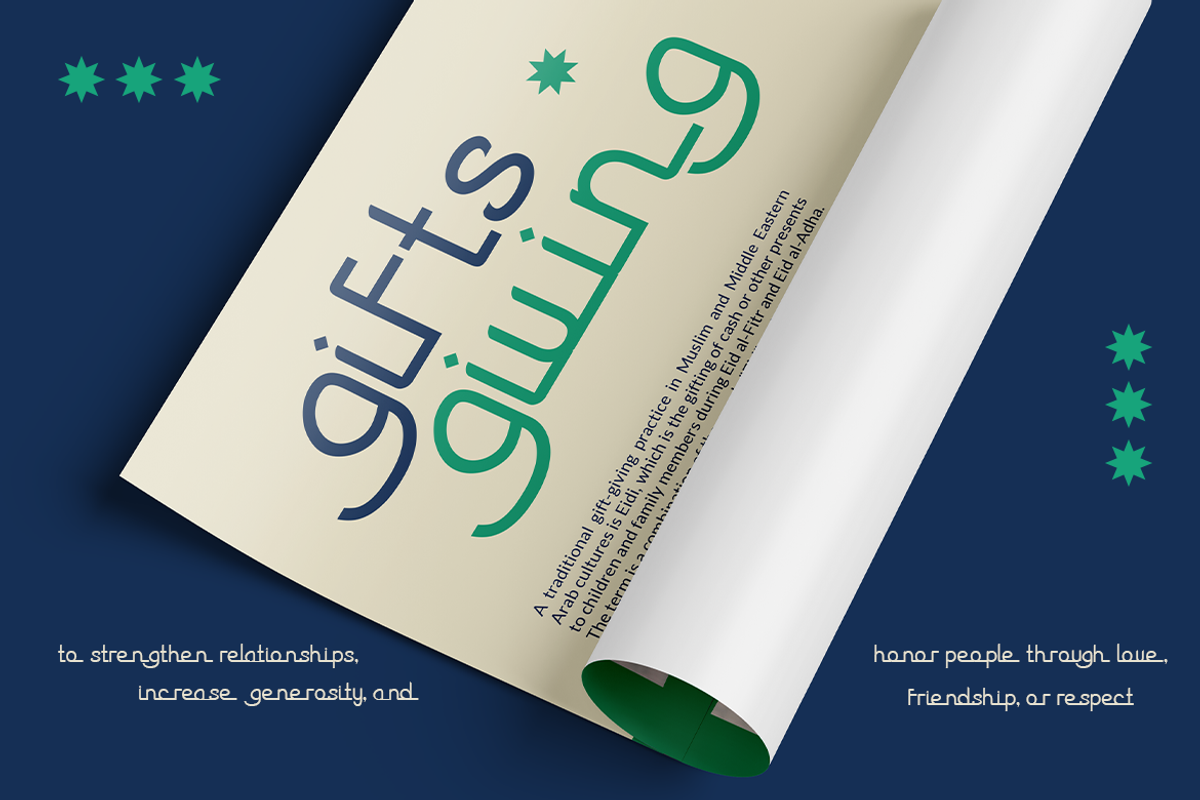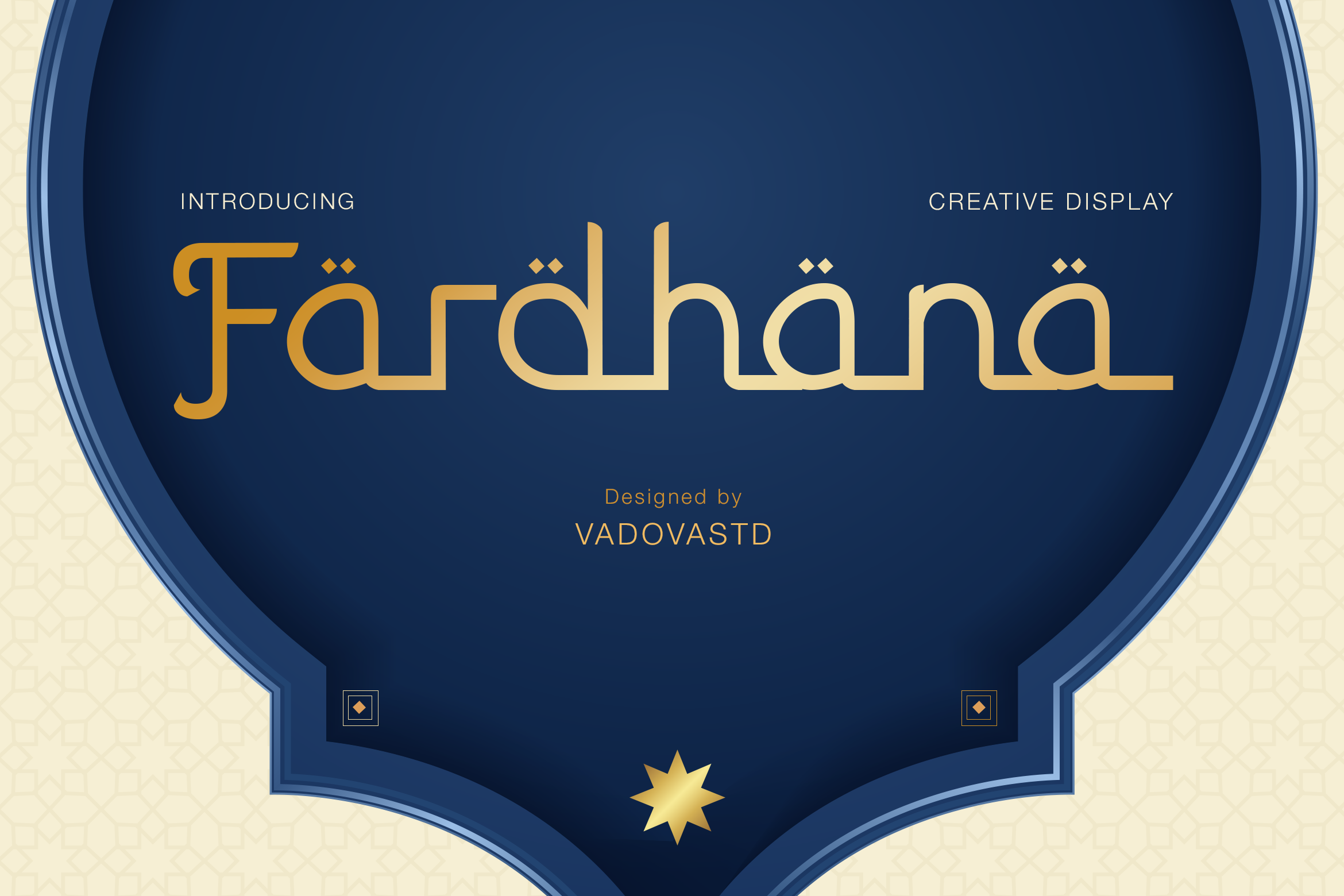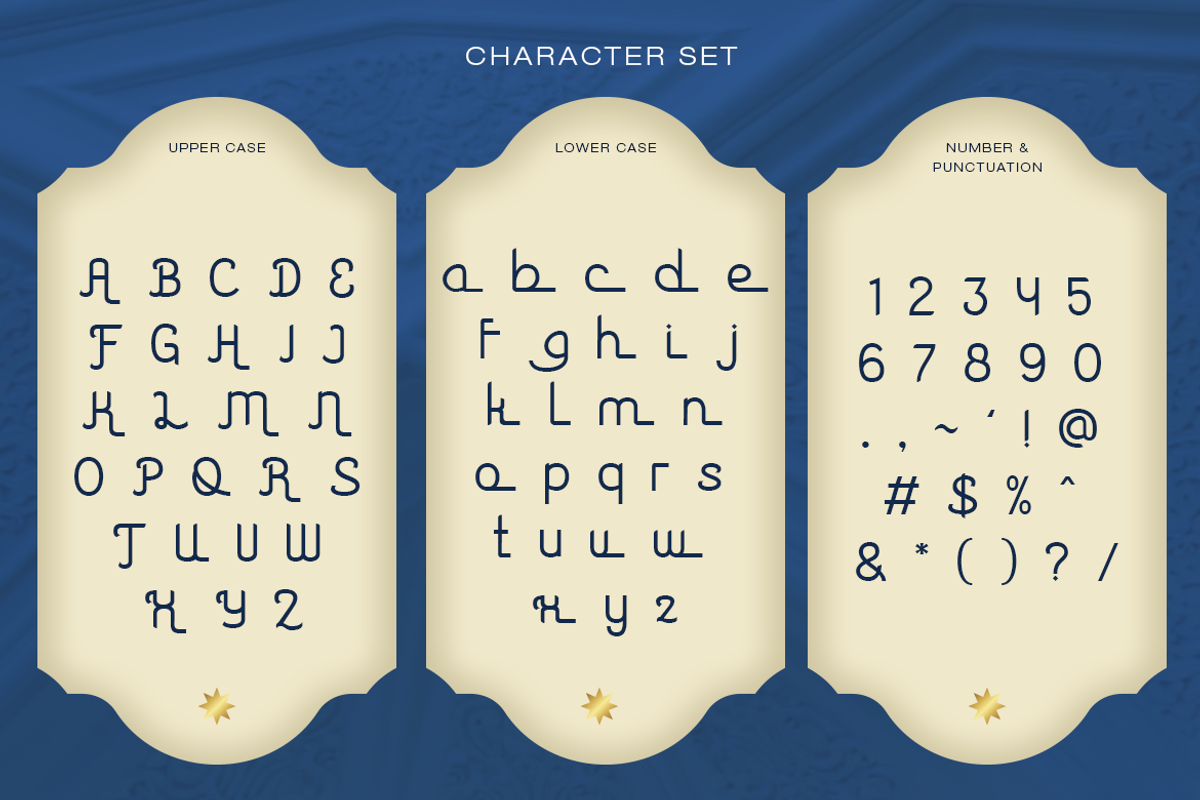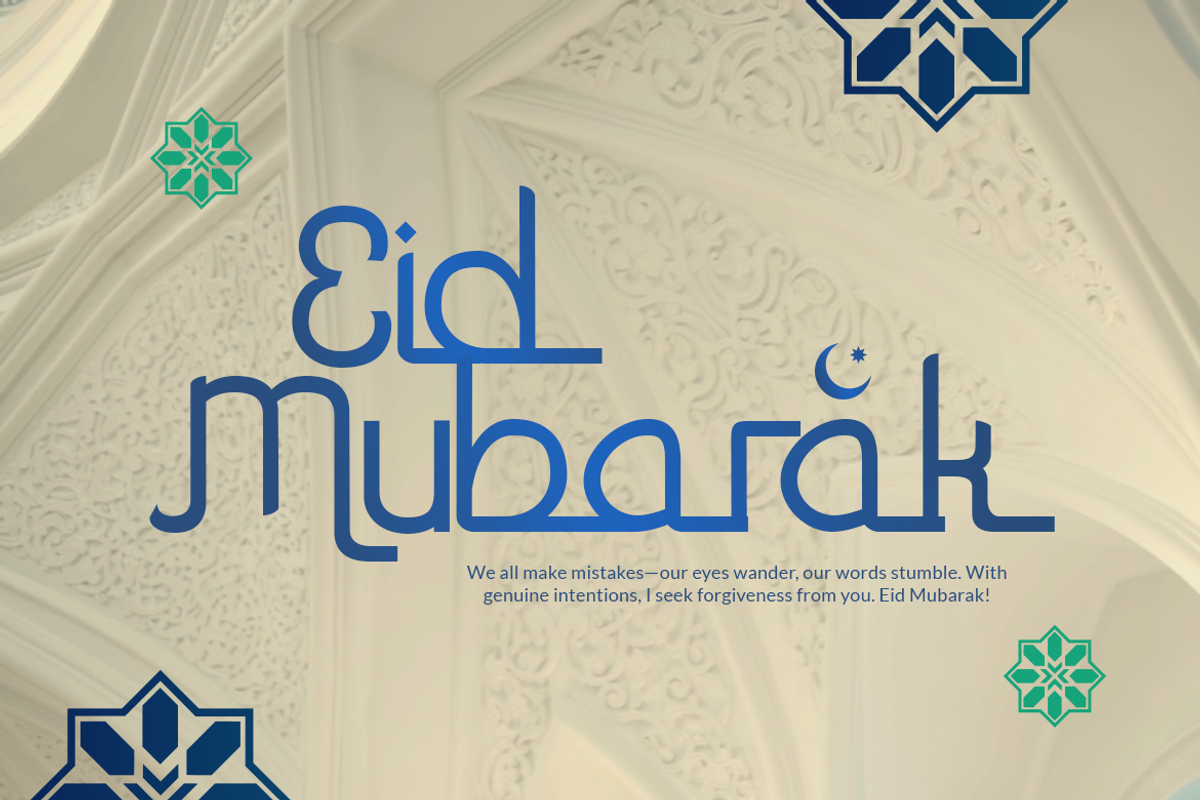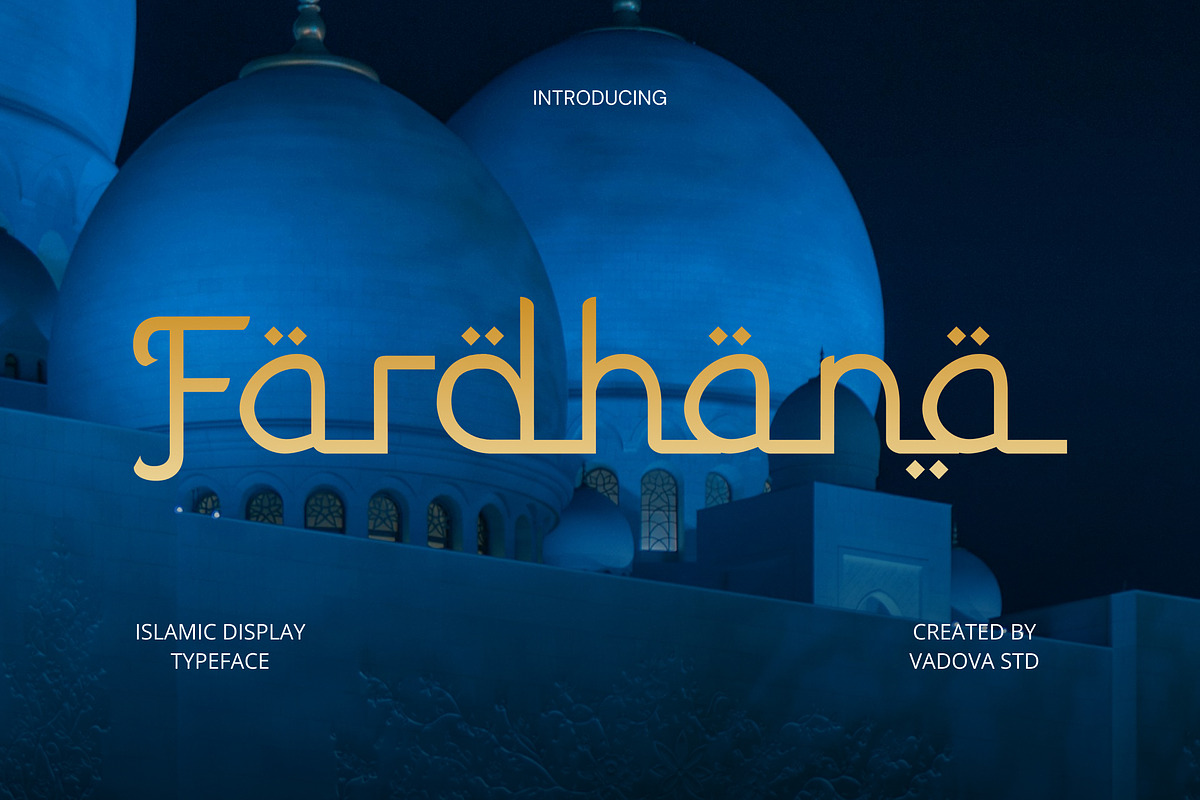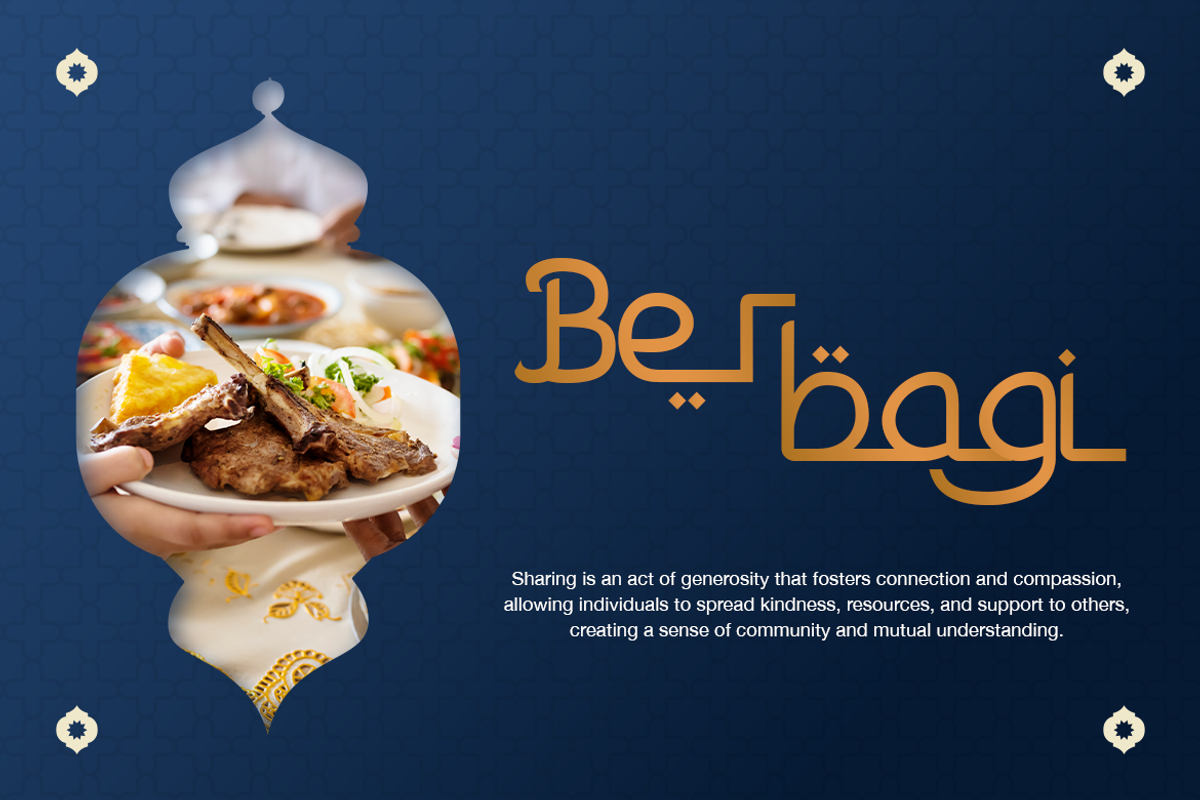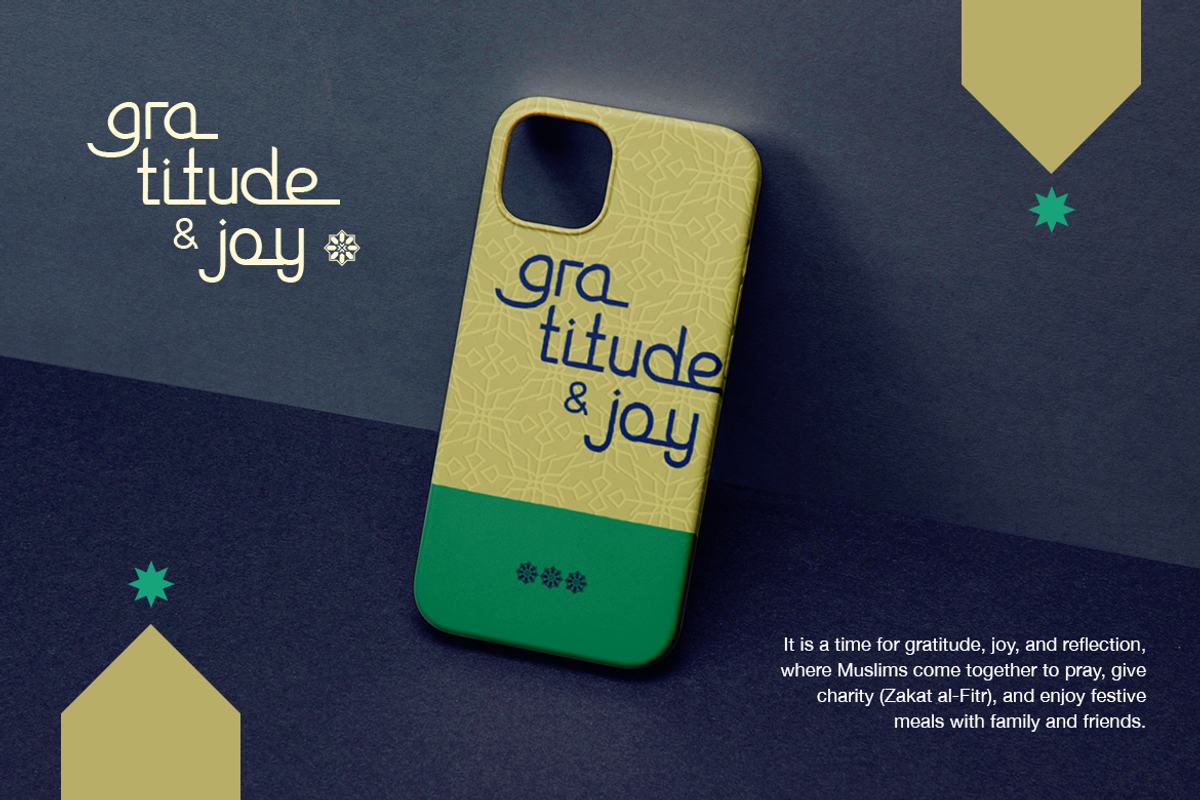
Fardhana – Islamic Display Typeface
Fardhana is an Islamic display typeface inspired by Arabic calligraphy and cultural aesthetics. With its geometric structure, decorative shapes, and modern elegance, Fardhana is perfect for capturing the spirit of Ramadhan, Eid al-Fitr, Eid al-Adha, and Islamic-inspired branding.
This font blends tradition and modern design, making it versatile for both religious and commercial projects such as greeting cards, event posters, packaging, and editorial layouts.
Highlights
Arabic-inspired decorative display style
Modern and geometric Islamic aesthetics
Perfect for festive, cultural, and religious themes
Elegant yet highly readable in print and digital
Best Uses
Ramadhan & Eid greetings
Islamic events & mosque posters
Halal product packaging
Editorial & cultural magazines
Wedding invitations & stationery
Social media templates for festive campaigns
Ligatures – creative letter connections
Alternates – stylistic options for flexibility
Multilingual Support – covers various international languages
Complete Character Set – uppercase, lowercase, numbers, punctuation
Bring faith, culture, and modern elegance to your designs with Fardhana, an Islamic typeface crafted to honor tradition and contemporary creativity.